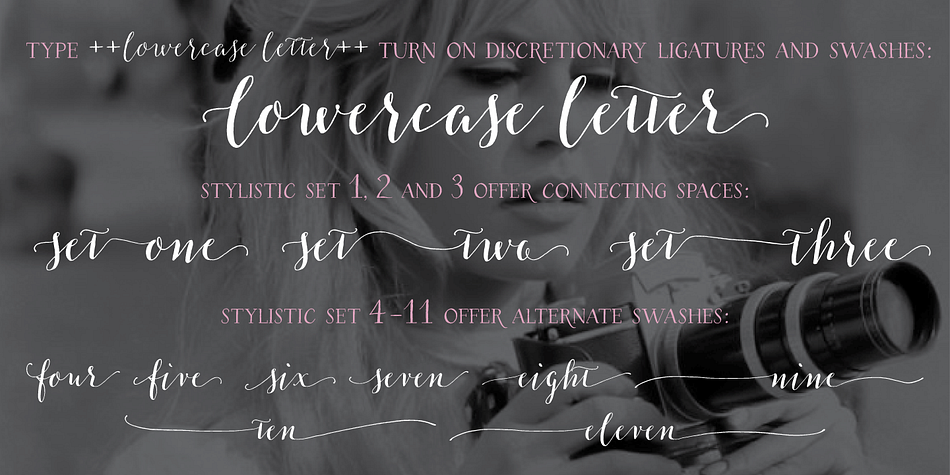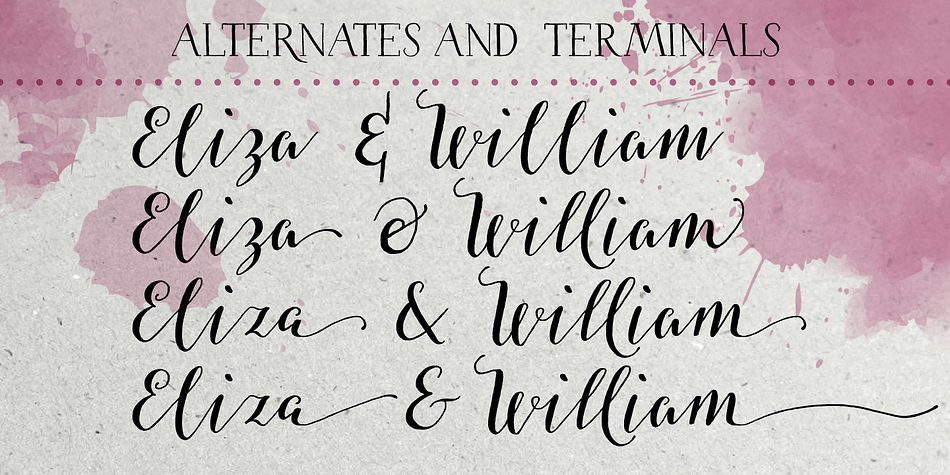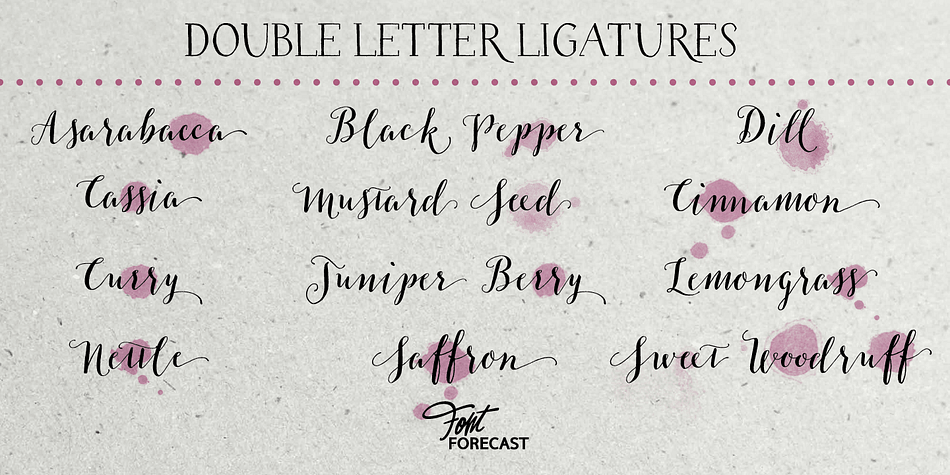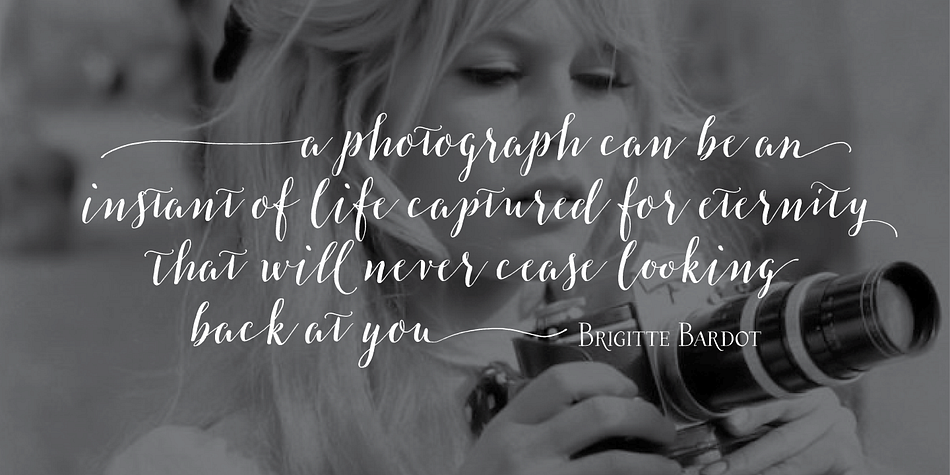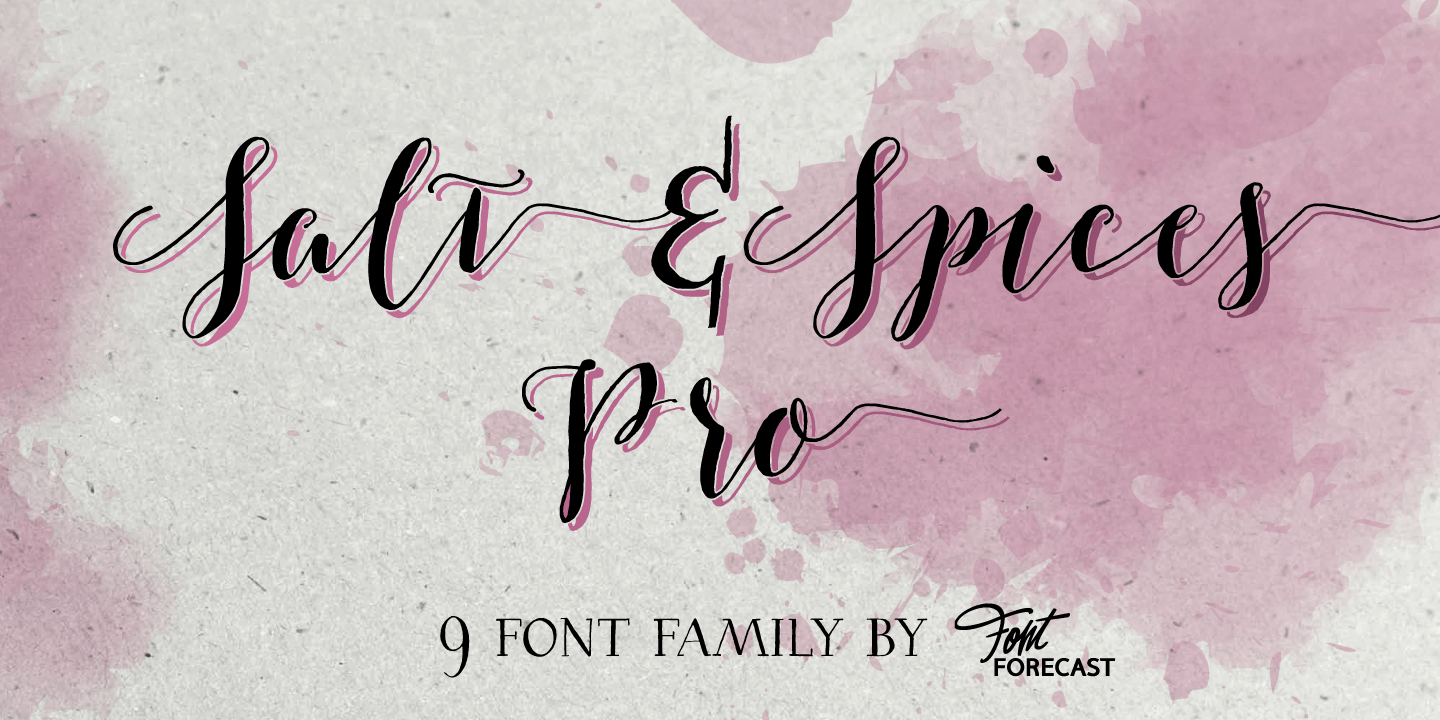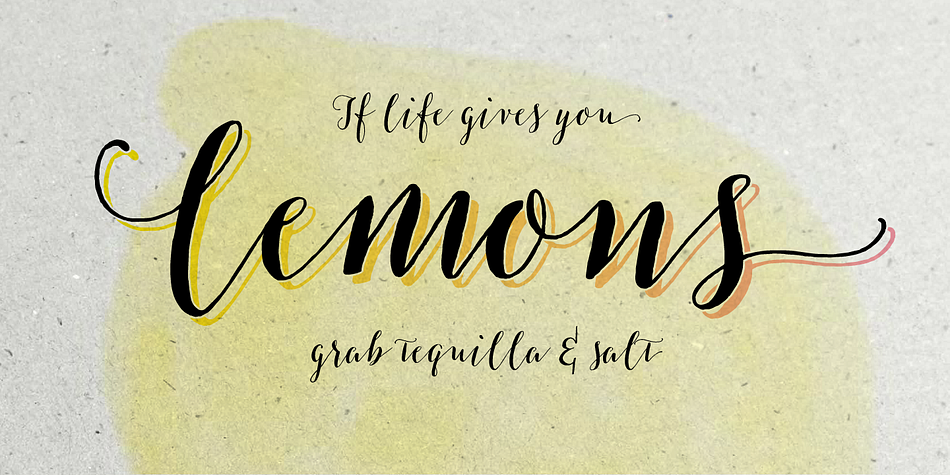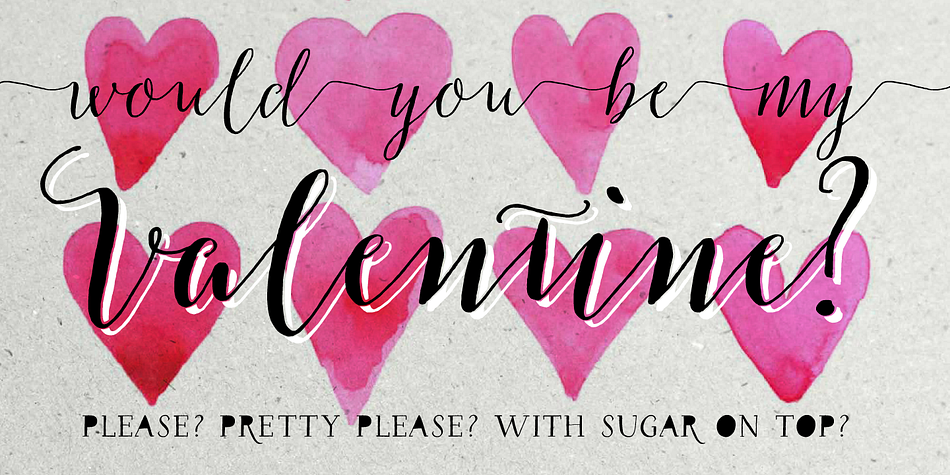
Salt & Spices Pro is a script, hand display and modern calligraphy font family. This typeface has nine styles and was published by Fontforecast.
Salt & Spices Pro is a welcome addition to the ever popular modern calligraphy genre. Digitizing the many handwritten samples into a fully functional connected script was done with great precision, carefully guarding the authentic look and feel of vintage dip pen calligraphy.
Salt & Spices Pro is a very versatile 9 font family, consisting of 3 casual styles: Regular, Bold and Shadow. With 587 glyphs each, they offer great flexibility in customizing words and phrases to suit your personal taste. For instance: the appearance of initial and terminal letters can be customized using the glyph pallet. Contextual alternates, Swashes and Stylistic sets give you the ability to replace spaces by 3 alternate connecting spaces or add swashes to initial/terminal letters. Double letter ligatures help sustain the natural flow of handwriting.
In addition to the 3 calligraphic family members, 3 Small Caps Sans styles and 3 Small Caps Serif styles were added. All have 435 glyphs and match very well because they were designed using the same vintage nib. Each of the styles can add great variation to your designs and they supplement and support each other perfectly.
Add exceptional language support to all that and you have the perfect ingredient to spice up even the most demanding design project.